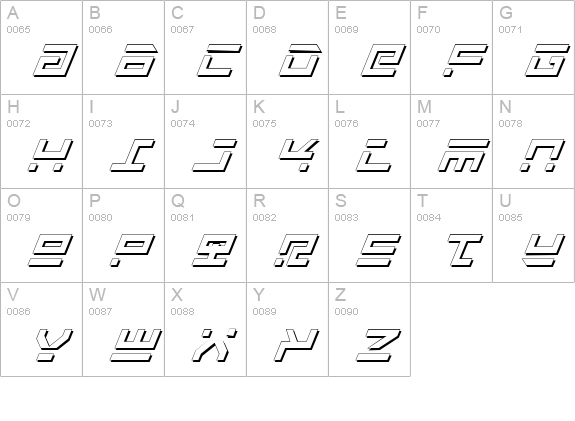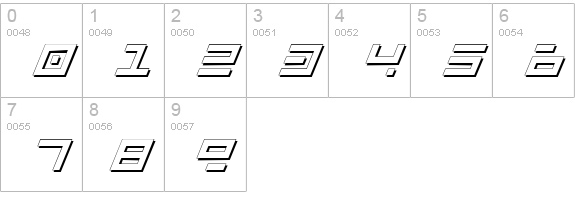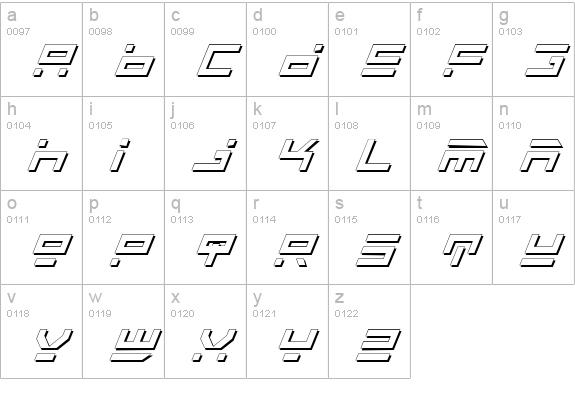
Rocket Type Shadow Italic is a distinctive, italic variant in the Rocket typeface family \xE2\x80\x94 well suited to design and typography projects.
Rocket Type Shadow Italic font is a striking and dynamic typeface that exudes a sense of energy and modernity. Its sleek and edgy design makes it perfect for projects that require a bold and contemporary look. The sharp angles and unique shadow effect add depth and dimension to any text, making it truly stand out. What's even better is that Rocket Type Shadow Italic font is available for free download at FontsMarket.com. This means you can easily incorporate this eye-catching font into your designs without breaking the bank. Whether you're working on a poster, logo, or website, Rocket Type Shadow Italic font will surely make a lasting impression on your audience. Download it now and let your creativity soar to new heights!